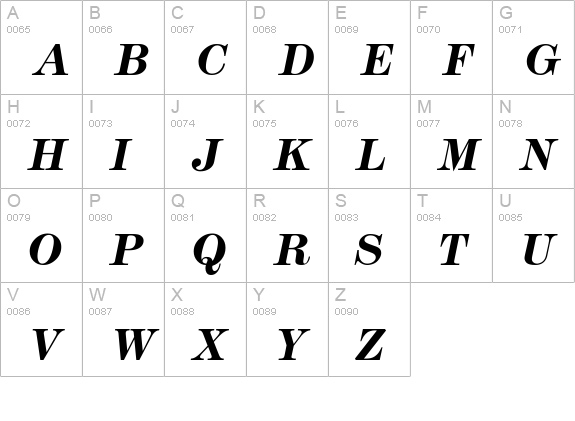
Modern Bold Italic is a strong, high-contrast, italic variant in the Modern typeface family \xE2\x80\x94 well suited to headlines, attention-grabbing titles, and strong calls-to-action.
The Modern Bold Italic font exudes a sense of contemporary sophistication with its sleek and stylish design. Its bold and italicized appearance adds a touch of flair to any project, making it perfect for creating eye-catching headlines or emphasizing important text. This versatile font is ideal for a wide range of design applications, from branding and advertising to editorial and web design. Best of all, the Modern Bold Italic font is available for free download at FontsMarket.com, allowing you to access this premium typeface without any cost. With its clean lines and modern aesthetic, this font is sure to elevate your designs and make a lasting impression. Download the Modern Bold Italic font today and unleash your creativity with this stunning typeface.